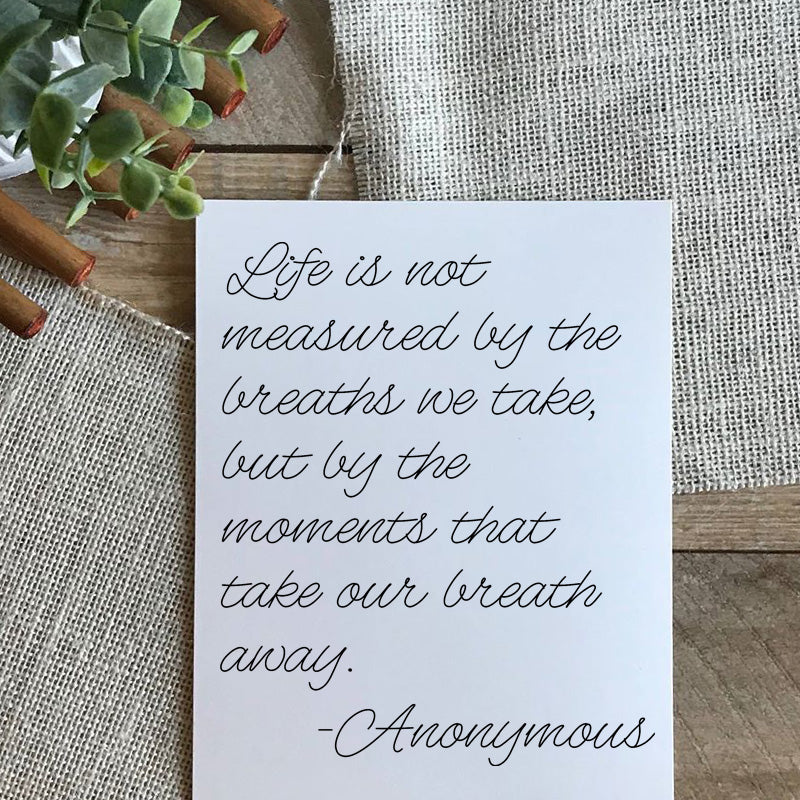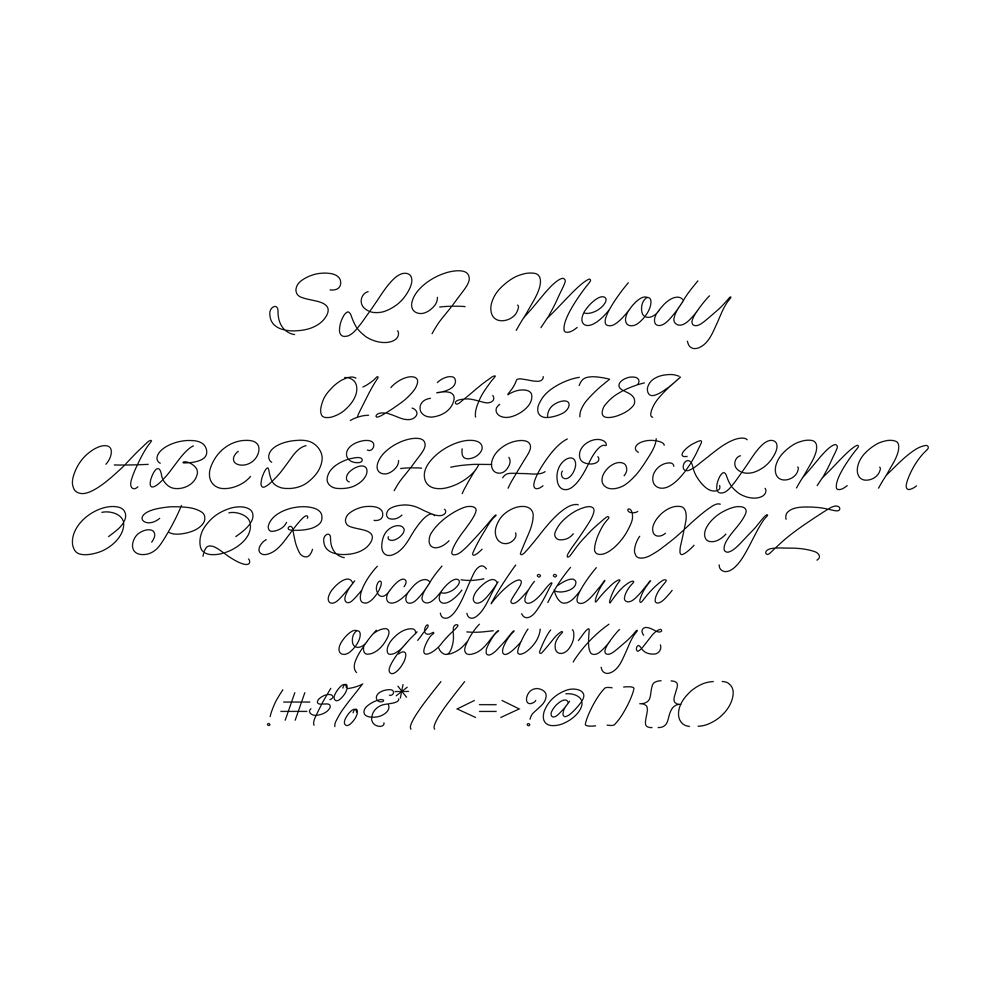
SLF Melody – Slanted Single Line Script for Foil Quill & Engraving
SLF Melody is a flowing, slanted single line script font with a lighthearted flair. It’s a great choice for Foil Quill lettering, cards, invitations, journaling, and engraving projects when you want a script that feels cheerful and easy to read.
• Foil Quill and pen-tool lettering
• Invitations, greeting cards, journaling, and lighthearted craft projects